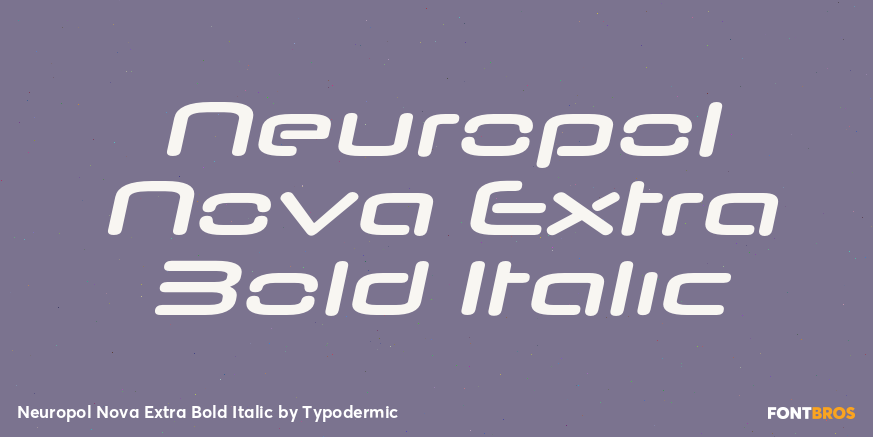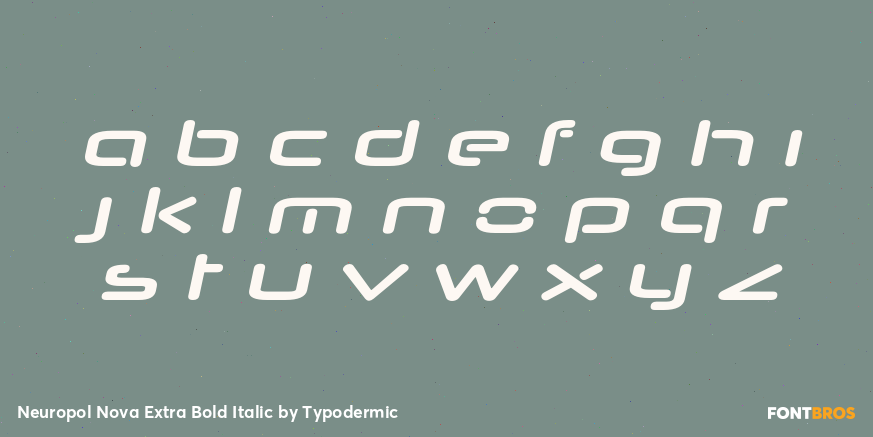
Neuropol Nova Extra Bold Italic
Buy NowA lot of futuristic typography has become ordinary technology typography. Clean geometry, rounded corners, and wide proportions can signal software, mobility, or aerospace without making a project feel particularly distant from the present. Neuropol Nova is for situations where that distance matters.
Its letterforms deliberately push familiar Latin shapes toward something more proprietary. Rounded construction, recurring stencil-like breaks, and unusually built capitals such as M, N, and W make ordinary words feel as though they belong to a technological culture with its own alphabet. The forms remain readable, but recognition takes a slightly less familiar route. That tension is the point.
Science-fiction production design is an especially natural setting. Feature films, streaming series, games, and themed entertainment need names for spacecraft, orbital facilities, artificial-intelligence systems, research divisions, colonies, corporations, vehicles, and manufactured objects. Neuropol Nova can give those names a shared visual language across hull graphics, environmental lettering, interface headings, equipment markings, promotional key art, and other elements that help turn a fictional setting into a coherent place.
The same quality can distinguish real technology that is supposed to feel ahead of the current market. Humanoid robotics, autonomous vehicles, experimental aerospace systems, fusion research, quantum hardware, and advanced mobility programs often need a conspicuous typographic layer for prototype names, research initiatives, concept vehicles, launch films, and exhibition graphics. A conventional corporate sans can handle the explanation; Neuropol Nova marks the part that is meant to feel unprecedented.
That division can be especially useful inside established companies. An aerospace manufacturer, automaker, or technology group may have a restrained corporate identity but still need a different voice for an experimental division or named R&D program. Neuropol Nova can function almost like a typographic codename system, separating the speculative project from everyday corporate communication without requiring an entirely unrelated identity.
Immersive environments offer another place for its unfamiliarity to work at scale. Space museums, science centres, technology experience centres, simulation venues, and futuristic attractions can use Neuropol Nova for exhibit titles, named zones, installations, portals, and wall-sized environmental typography. The lettering can feel as though it belongs inside the world being presented rather than simply describing that world from outside it.
Neuropol Nova is useful when familiar language needs to feel slightly estranged from the present: the name of a spacecraft that has never existed, a prototype intended to suggest what comes next, or an organization belonging to a world whose visual conventions have not been invented yet.